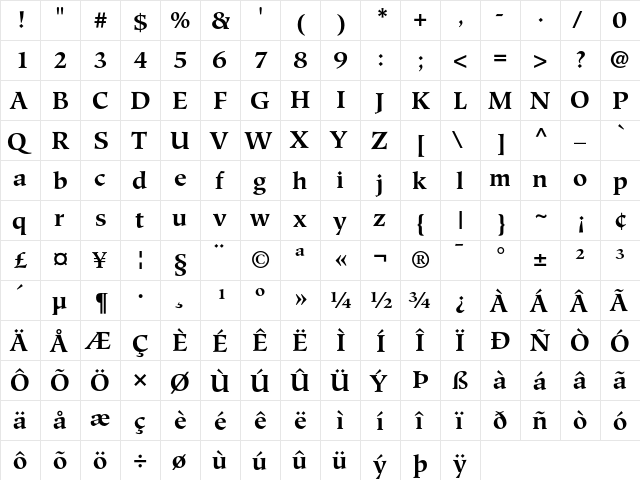
Hiroshige Bold Font Preview
Hiroshige Bold
Design Context for Hiroshige Typeface
Hiroshige is a composed and adaptable typeface that performs quietly and consistently across a wide range of design contexts. Its bold stroke weight gives it real presence on the page.
Pro Tip: Pair Hiroshige with a font of contrasting weight or personality to build a more expressive typographic hierarchy.